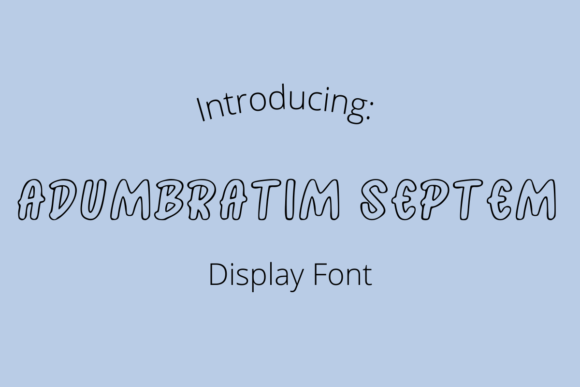
The Creative Spark: Discovering Adumbratim Septem Font
I’ll never forget the frustration of working on a design project, hours pouring over concepts and creativity seemingly stuck in a rut. My client wanted something fresh, something bold, and something that would make their brand stand out in a crowded market. That’s when I stumbled upon Adumbratim Septem Font. With its unique and unconventional design, this display font adds a sense of creativity and individuality to your designs, making it ideal for artistic projects and innovative branding.
First Impressions: A Review of Adumbratim Septem Font
• ✨ Unique and eye-catching design that’s perfect for making a statement
• ✅ Highly legible, even in larger bodies of text
• 💡 Supports OpenType features, allowing for advanced typographic control
• 🎨 Versatile and adaptable, suitable for a wide range of creative projects
While Adumbratim Septem Font is an excellent choice for many projects, there are a few things to keep in mind:
• ⚠️ Some characters may appear slightly condensed, which can affect overall text flow
• 🤔 Limited suitability for body text or long-form content due to its display-focused design
The Designer Inspiration Behind Adumbratim Septem Font
According to its creator, Adumbratim Septem Font was inspired by the concept of shadow and silhouette. The designer aimed to craft a font that would evoke a sense of mystery and intrigue, while also providing a versatile tool for creative projects. By combining bold lines and unique character shapes, Adumbratim Septem Font was born – a true reflection of innovative design and artistic expression.
What type of projects is Adumbratim Septem Font best suited for? Adumbratim Septem Font is ideal for artistic projects, innovative branding, and creative endeavors that require a unique and eye-catching design.
Is Adumbratim Septem Font suitable for body text or long-form content? While Adumbratim Septem Font is highly legible, its display-focused design makes it less suitable for body text or long-form content. Consider using a more traditional font for these types of projects.